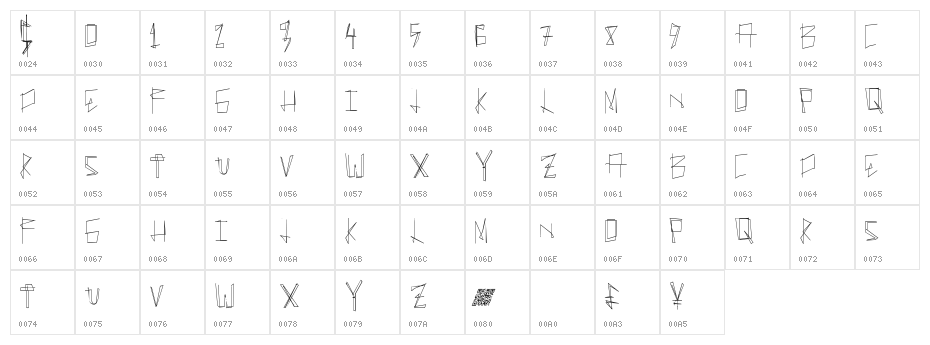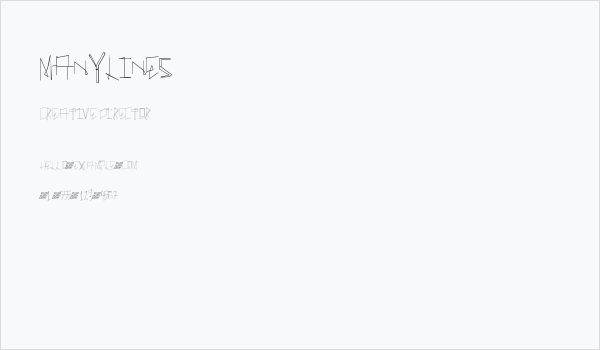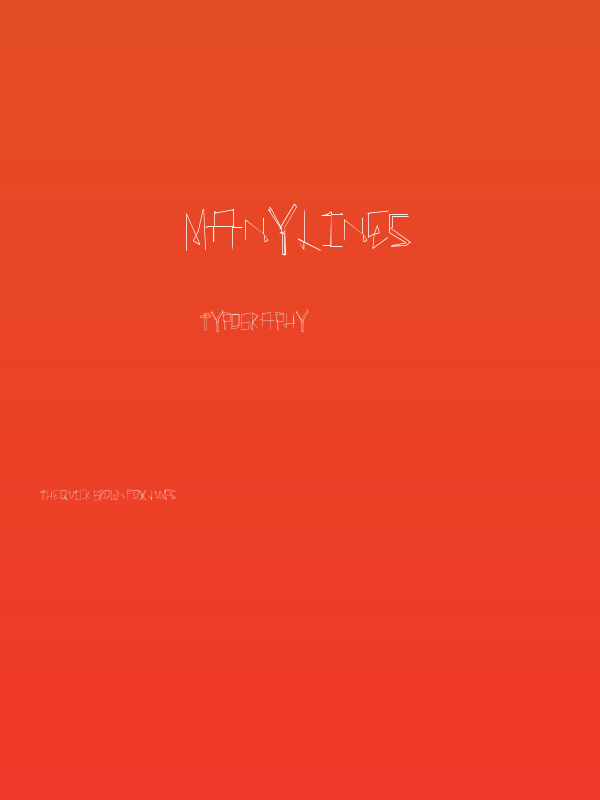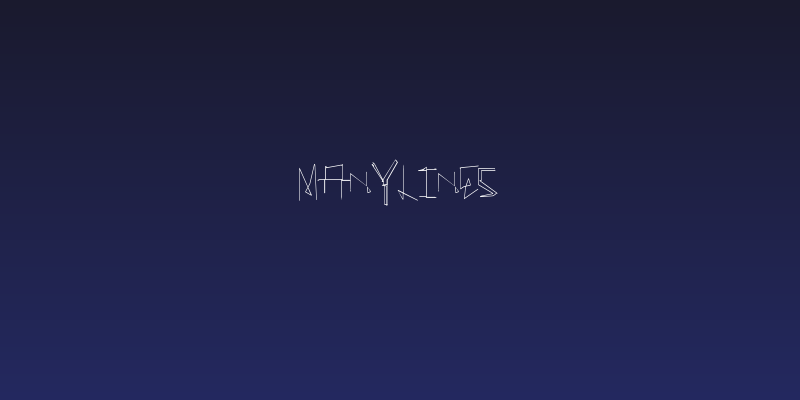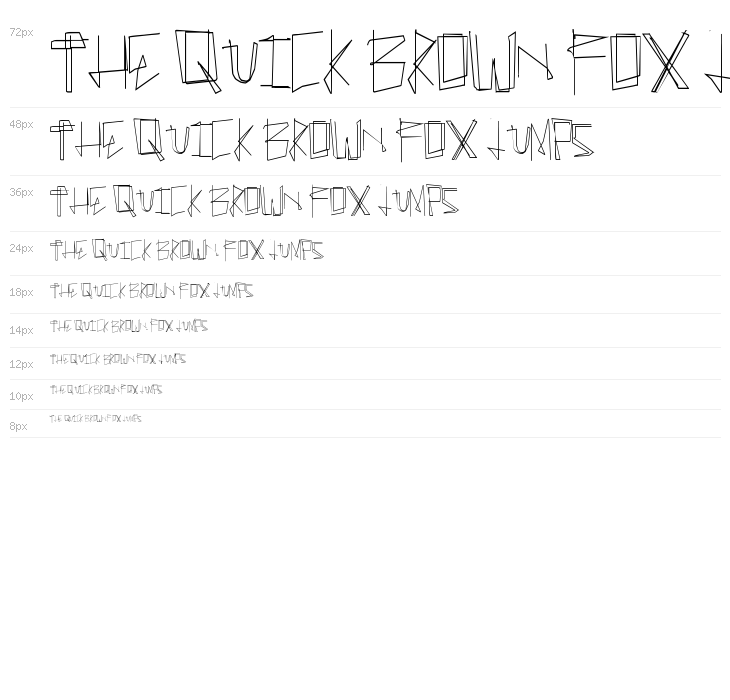
ManyLines Font
| Anwendungsfall | Logos, Headlines, Artistic displays |
| Vorgeschlagene Projekte | Ideal for modern art projects, album covers, edgy branding, and creative posters. |